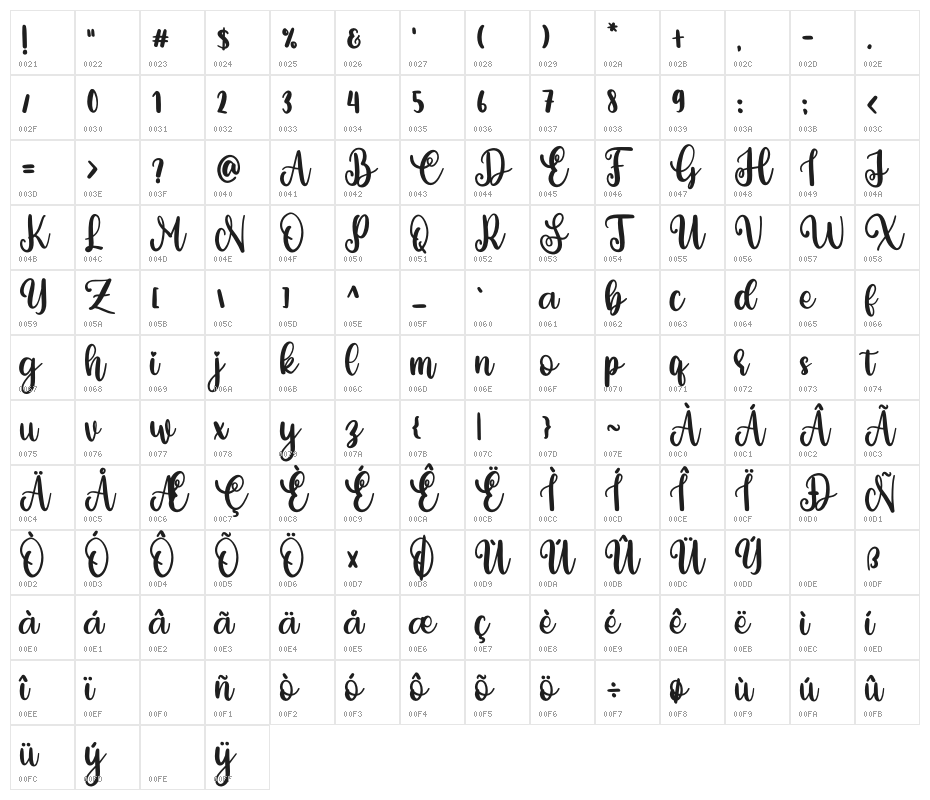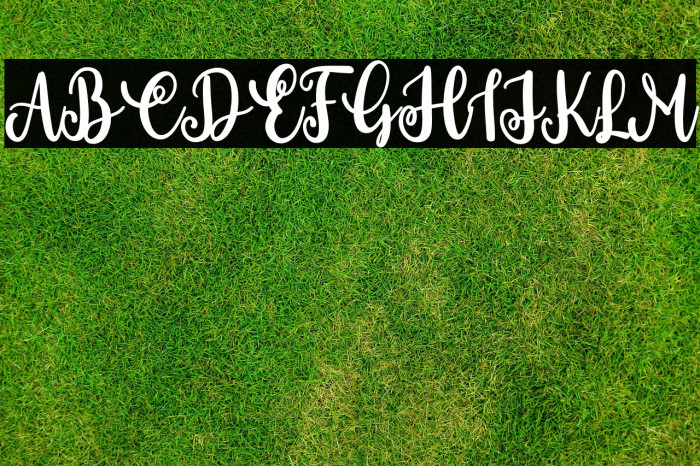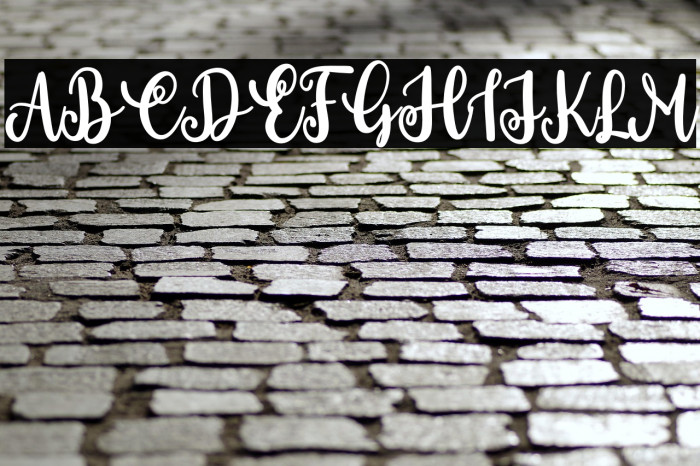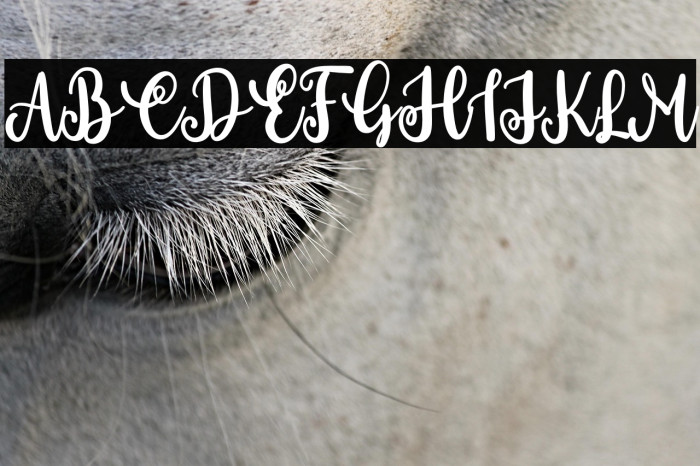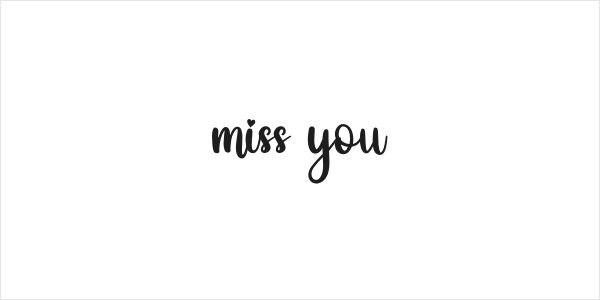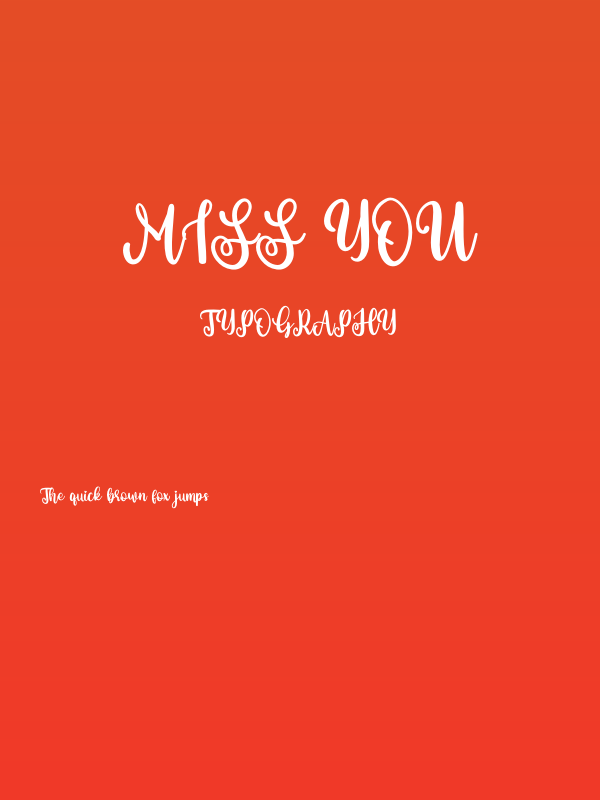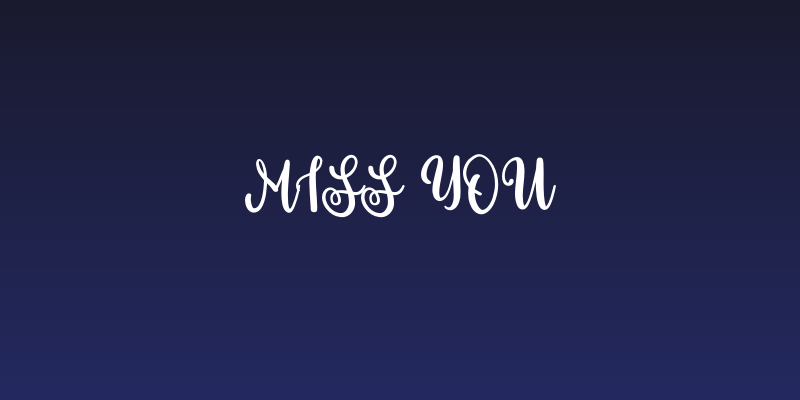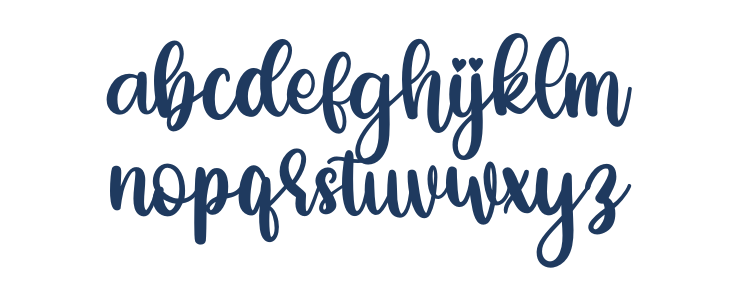
miss you Font
miss you Description
This font features a playful and whimsical script style, characterized by its flowing, interconnected letters and heart-shaped embellishments on certain characters. The uppercase letters exhibit a charming looped design, while the lowercase letters maintain a consistent, smooth flow. The numerals are bold and slightly tilted, adding to the font's lively appearance. Special characters are creatively integrated, maintaining the overall playful aesthetic. This font's bold strokes and decorative elements make it ideal for projects that require a touch of personality and flair.
Use CaseLogos, Headlines, Invitations
Proposed ProjectsIdeal for greeting cards, invitations, playful branding, and social media graphics.